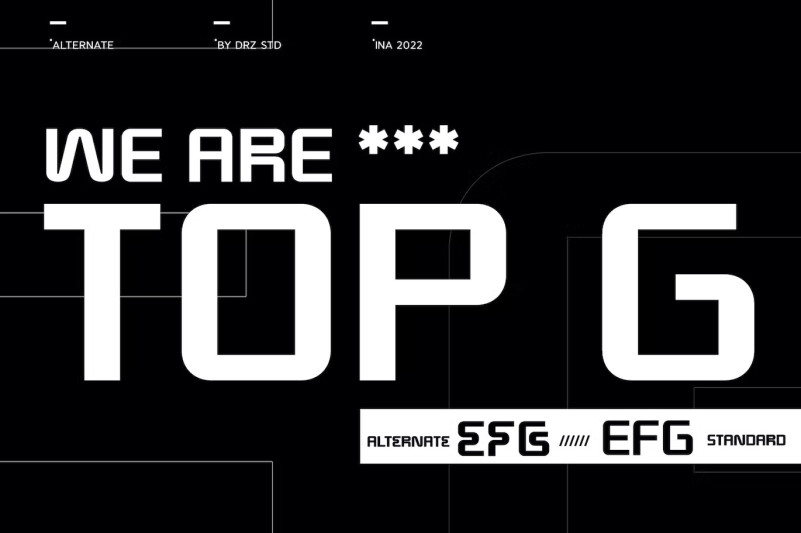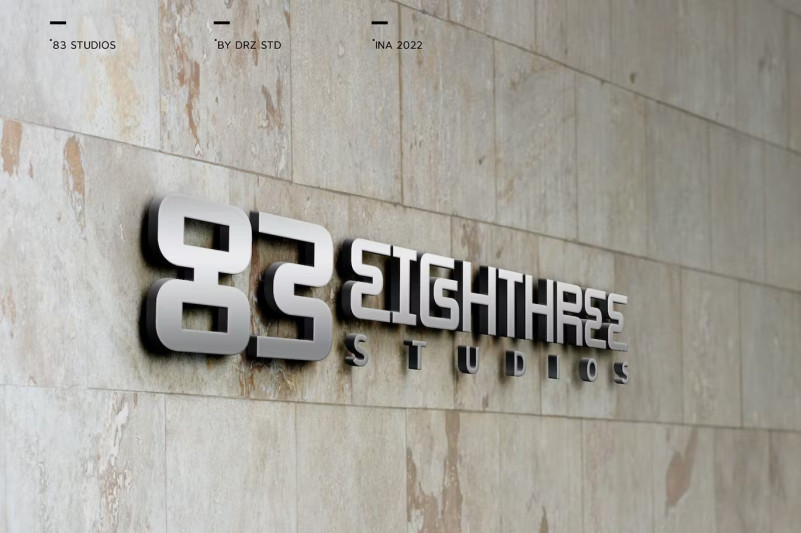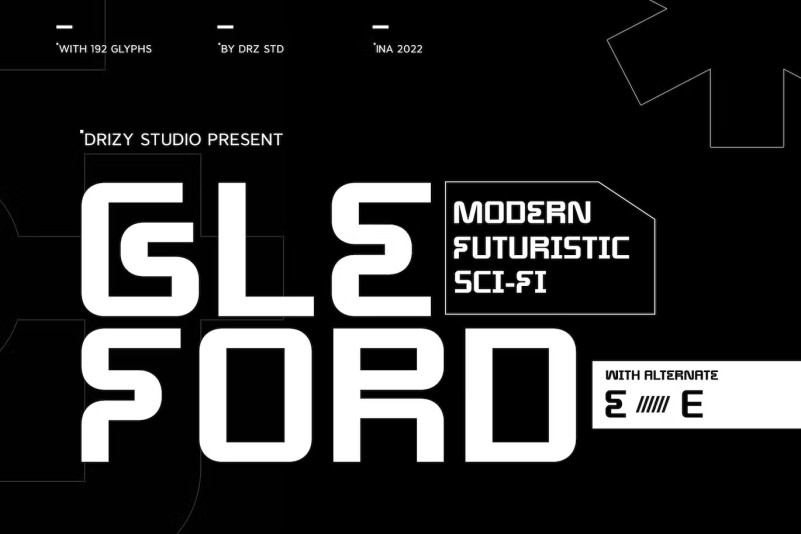
Gleford Font
Hello Everyone, introduce our new product,Gleford Display Font, is a Modern Sci-fi Font from Drizy Studio. Offering all the styles you need for Sci-fi theme of your projects.
Gleford features: Uppercase & Lowercase Punctuation & Numbers Multilingual Support Alternates